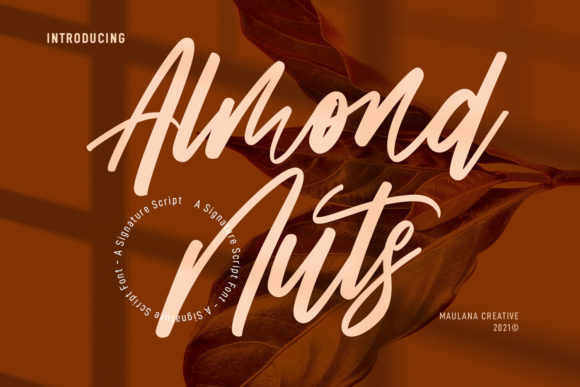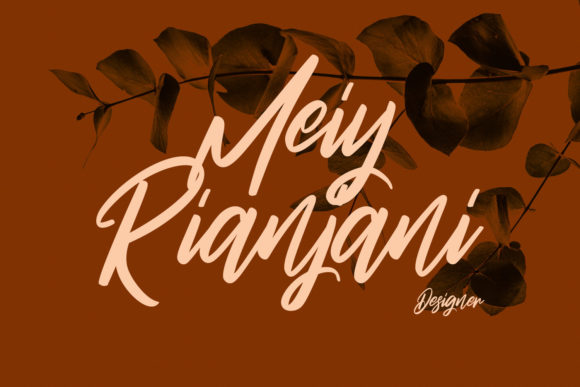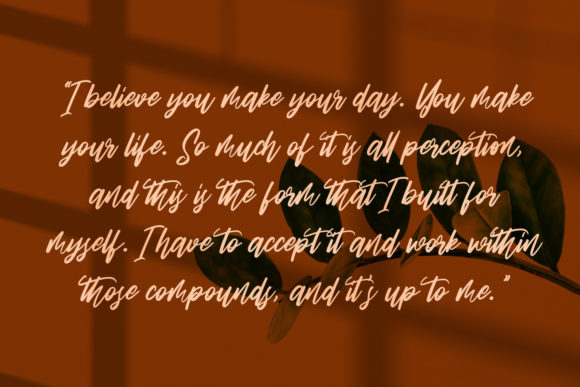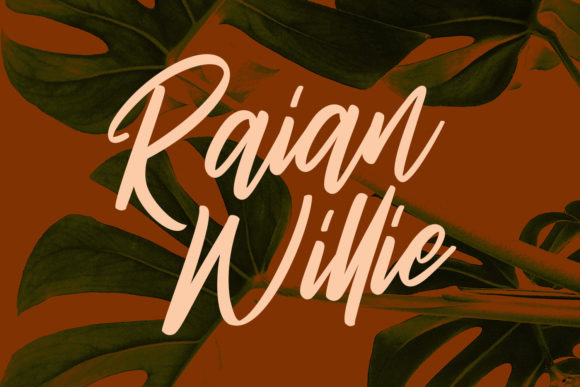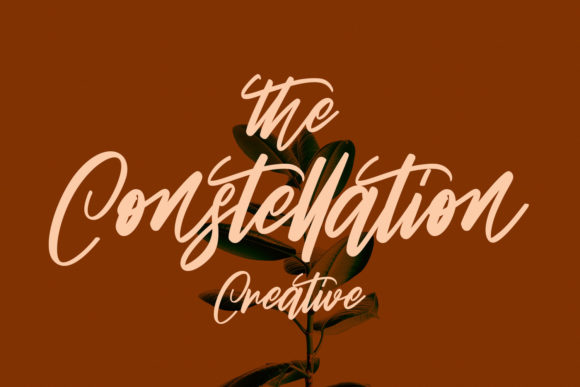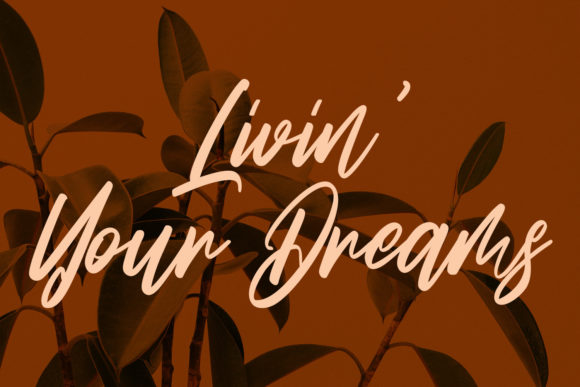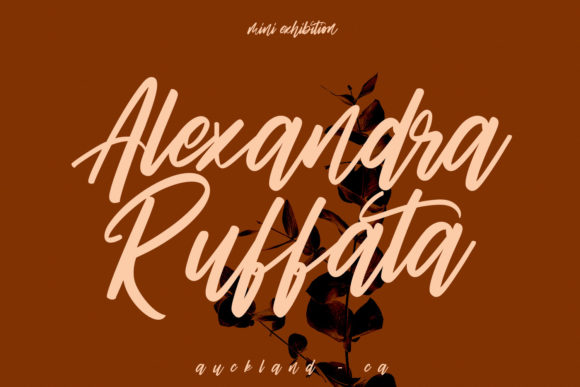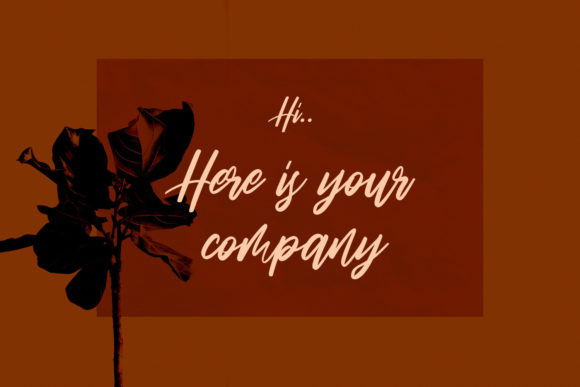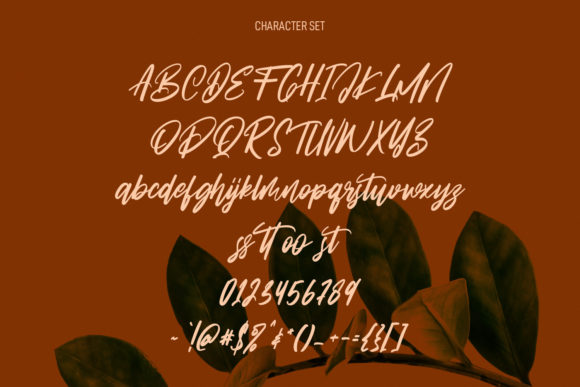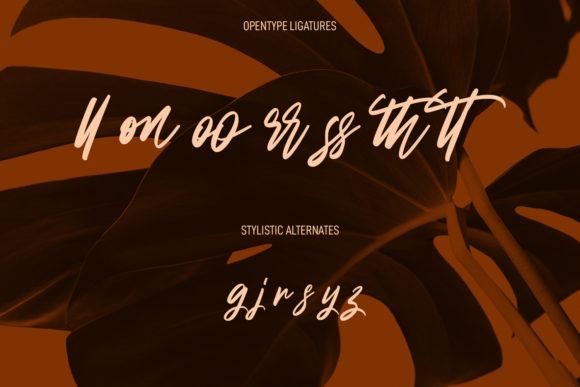
About Almond Nuts Font
Almond Nuts is a casual signature script font. This font was particularly crafted for those who need a beautiful and refreshing look to their designs.